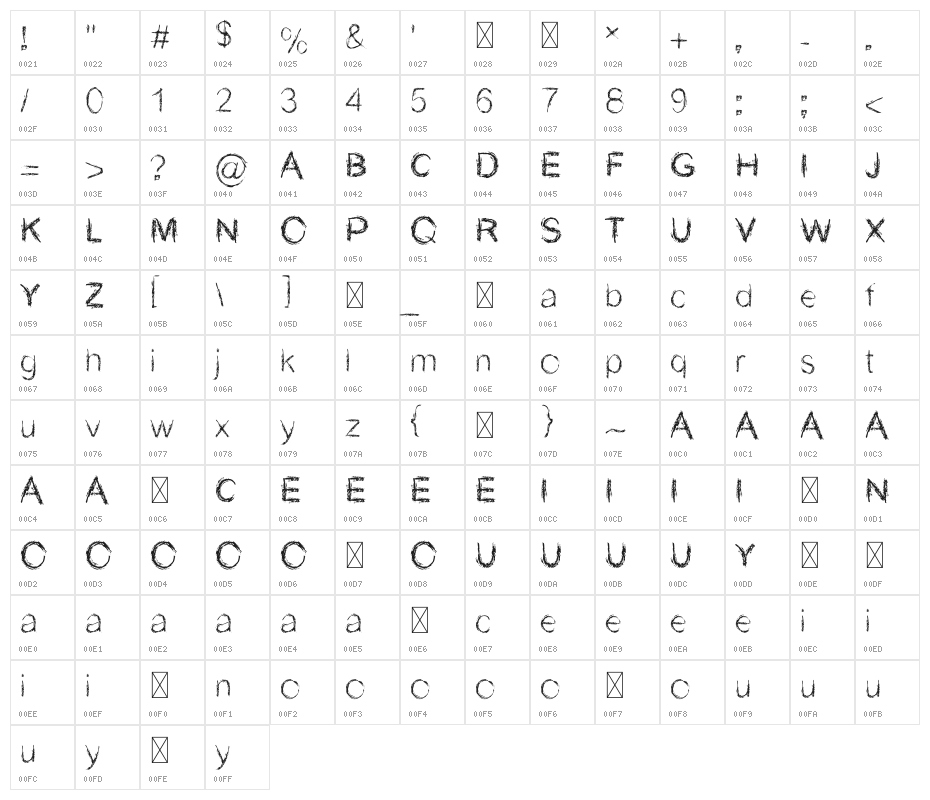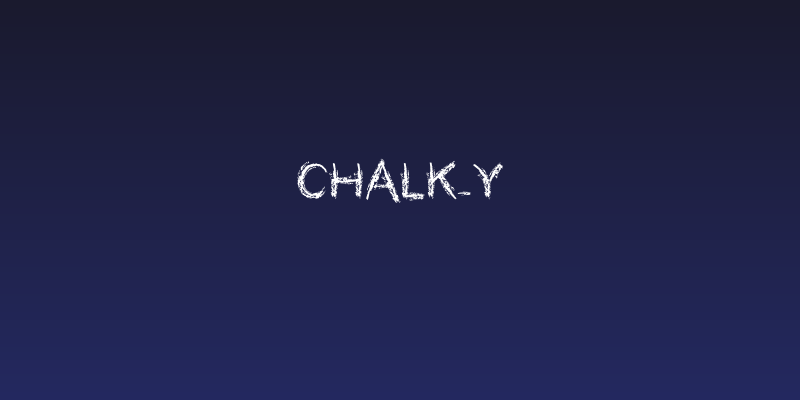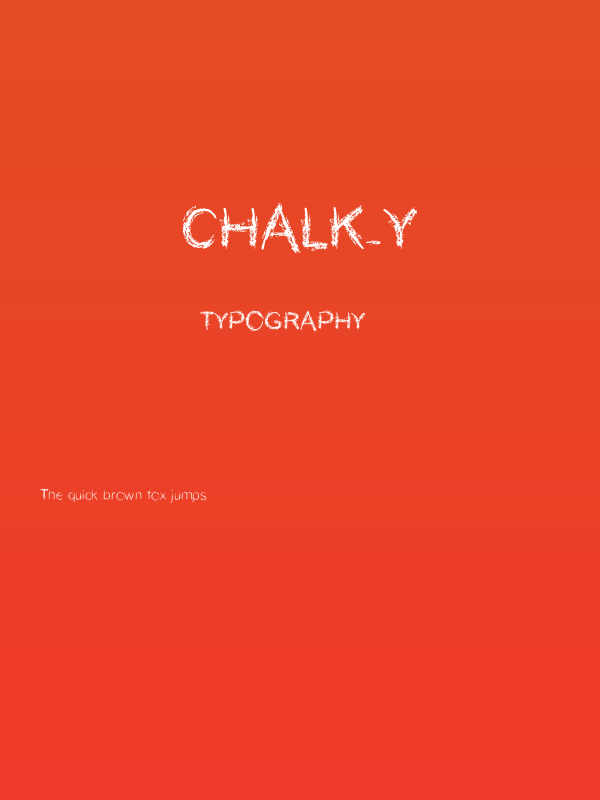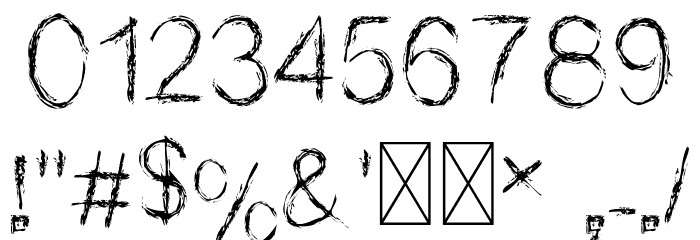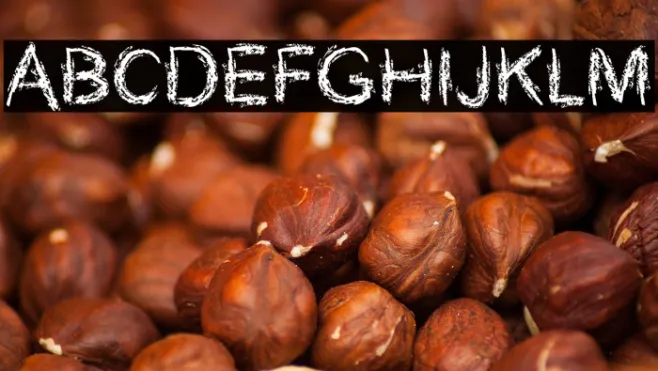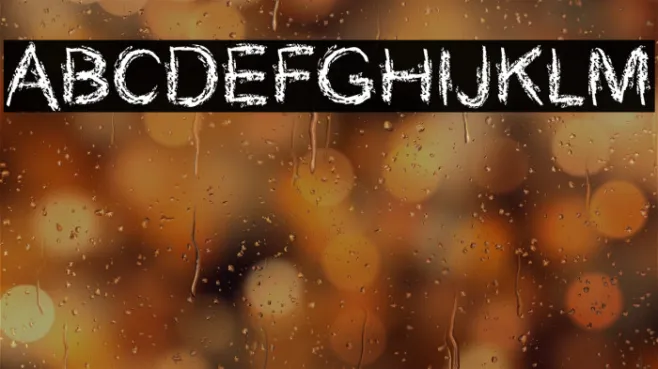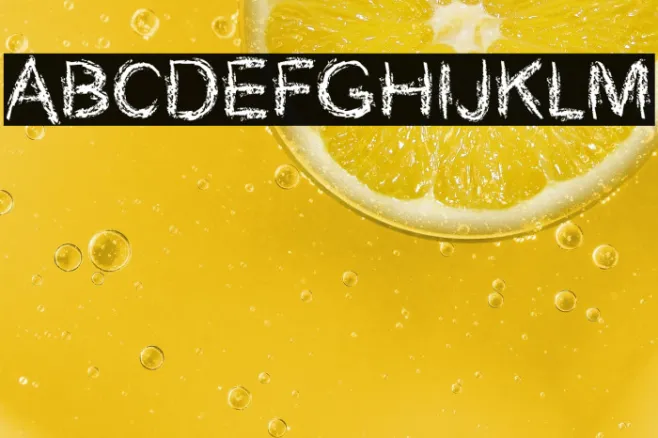
Chalk-y Font
Chalk-y Description
This font features a textured, chalk-like appearance, reminiscent of handwriting on a chalkboard. The letters have an uneven, rough edge that gives them a casual and artistic feel. The uppercase and lowercase characters maintain a consistent style, with a slightly irregular stroke that adds to the hand-drawn aesthetic. Numbers and special characters follow the same design, ensuring a cohesive look throughout. This font is ideal for projects that require a playful or informal touch, such as school-themed designs, creative posters, or artistic branding.
| Overall Style | Casual, Artistic |
| Proposed Projects | Ideal for school-themed designs, creative posters, artistic branding, and informal invitations. |